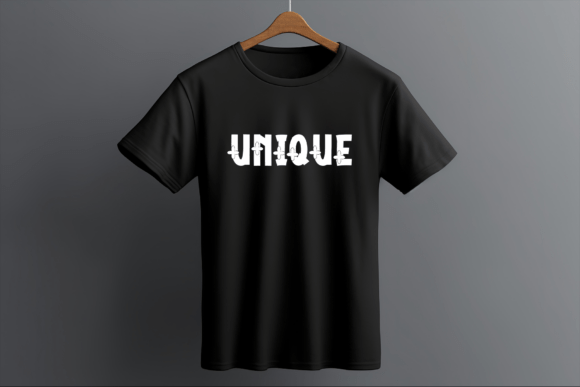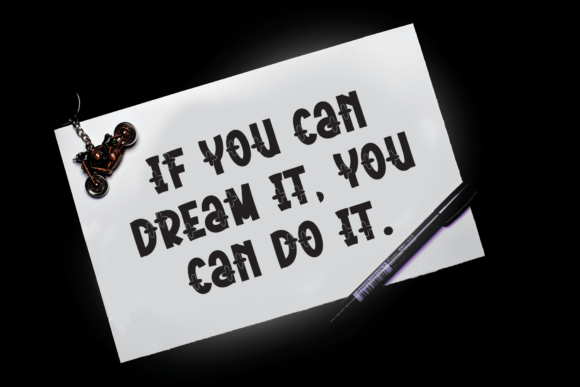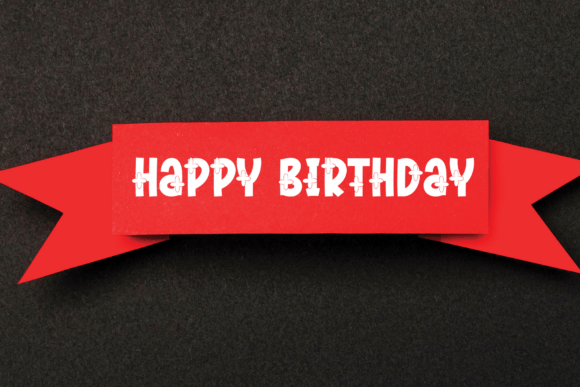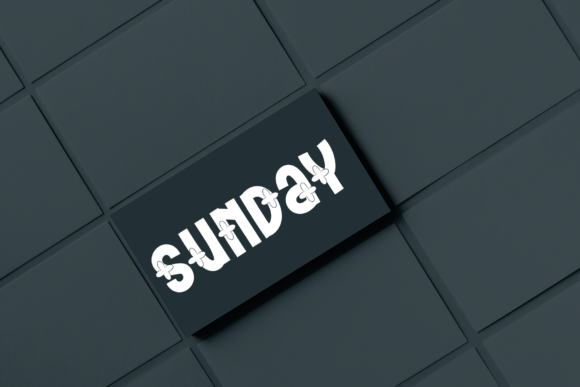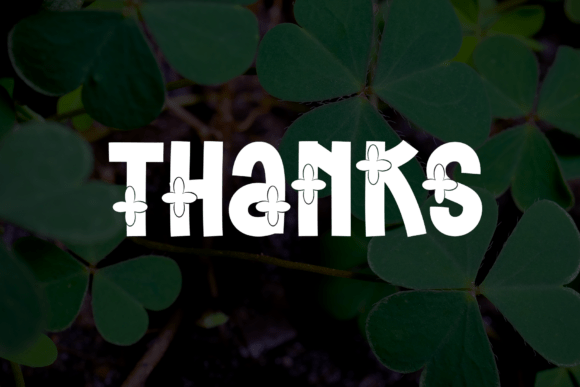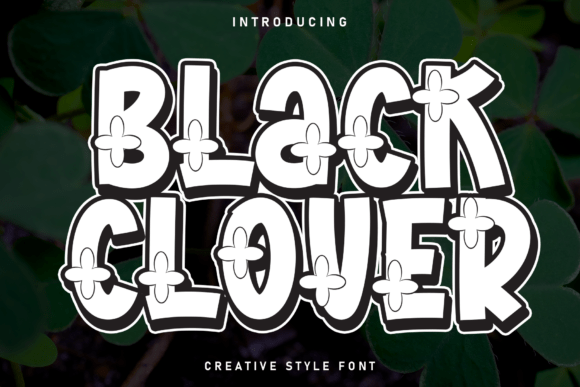
Unleash Your Inner Rebel with Black Clover Font
Are you tired of using the same old fonts for your designs? Do you want to add a touch of rebellion and edginess to your projects? Look no further than the Black Clover Font, a high-energy, street-style decorative display typeface that’s sure to turn heads. This bold and loud font blends graffiti aesthetics with creative floral motifs, making it the perfect choice for streetwear brands, gaming content, and urban-themed events.
The Perfect Blend of Graffiti and Floral Motifs
The Black Clover Font is a unique and eye-catching typeface that combines the raw energy of graffiti with the delicate beauty of floral motifs. Its thick outlines and unique “clover” cutouts add a layer of hidden detail to every character, making it a standout in any design. Whether you’re creating merchandise, album covers, or skate-shop branding, this font is sure to make a statement.
A Design Statement Like No Other
The Black Clover Font is more than just a typeface; it’s a design statement. Its heavy “shadow” effect and comic-book-inspired structure make it ideal for merchandise, where it can be printed in high-contrast neon colors or classic black and white. This font is perfect for designers who want to create bold and eye-catching designs that demand attention.
Perfect Pairings for Maximum Impact
To maximize the “street” appeal of the Black Clover Font, pair it with a gritty brush script or a simple, industrial-style sans-serif. This will add a touch of contrast and balance out the boldness of the font. For example, you could use the Black Clover Font for the main title and a brush script for the subtitle or supporting text.
The Black Clover Font is incredibly versatile and can be used for a wide range of creative projects. Here are just a few ideas to get you started:
- Album covers: Add a touch of rebellion to your music designs with the Black Clover Font.
- Skate-shop branding: Create bold and eye-catching logos and signage with this font.
- Extreme sports graphics: Use the Black Clover Font to create high-energy designs for extreme sports teams or events.
- Merchandise: Print the Black Clover Font in high-contrast neon colors or classic black and white for a bold and eye-catching design.
Tips for Using the Black Clover Font
Here are a few tips to keep in mind when using the Black Clover Font:
- Use it sparingly: The Black Clover Font is bold and loud, so use it sparingly to avoid overwhelming your design.
- Experiment with colors: Try printing the Black Clover Font in high-contrast neon colors or classic black and white for a bold and eye-catching design.
- Pair it with contrasting fonts: Pair the Black Clover Font with a gritty brush script or a simple, industrial-style sans-serif to add contrast and balance out the boldness of the font.
The Black Clover Font is a unique and eye-catching typeface that’s perfect for designers who want to add a touch of rebellion and edginess to their projects. With its bold and loud design, thick outlines, and unique “clover” cutouts, this font is sure to turn heads. Whether you’re creating merchandise, album covers, or skate-shop branding, the Black Clover Font is the perfect choice. So why settle for a boring, generic font when you can unleash your inner rebel with the Black Clover Font?